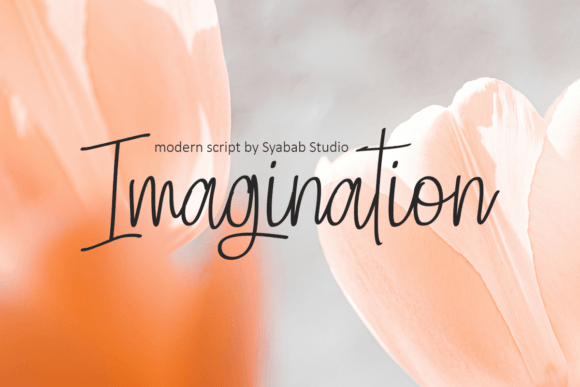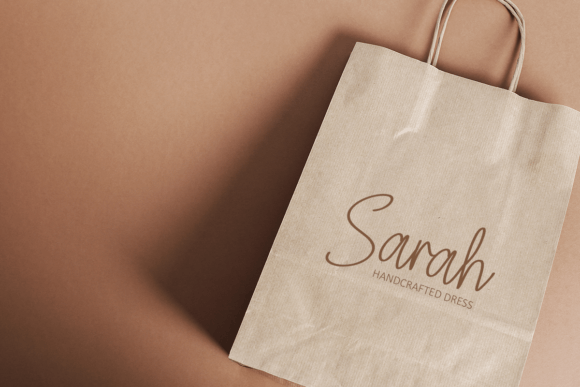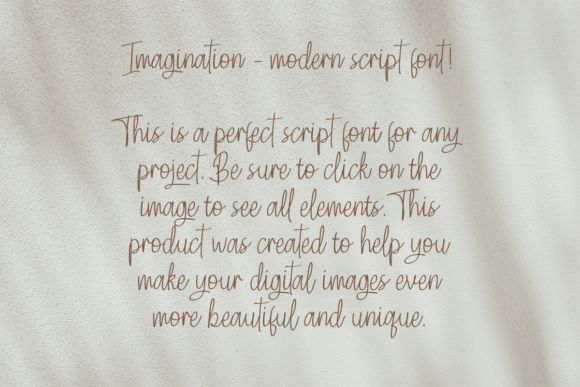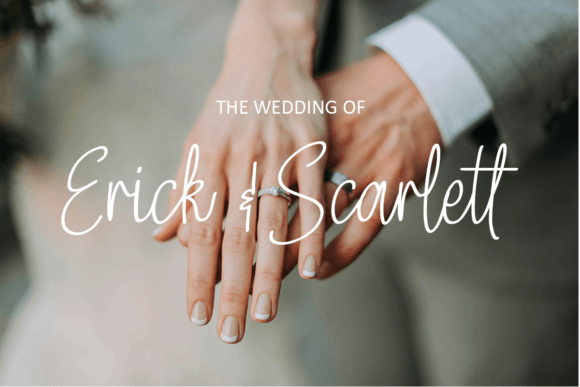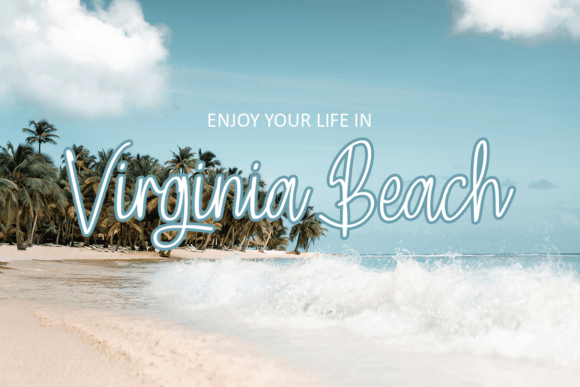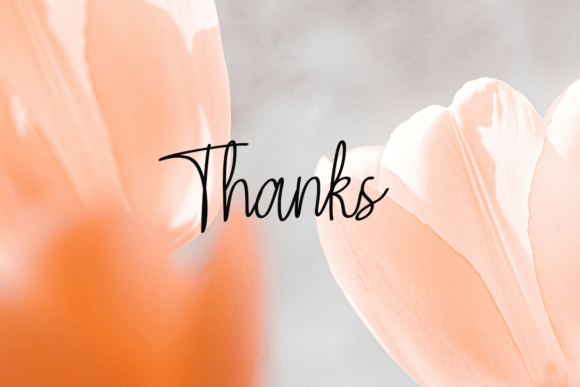
Unlock the Power of Imagination
Have you ever found yourself staring at a blank canvas, waiting for inspiration to strike? Maybe it’s a project at work, a creative outlet, or simply a new idea for a social media post. Whatever it is, the spark of imagination is what sets the wheels in motion and turns a concept into reality.
When it comes to bringing your creative vision to life, the right tools can make all the difference. That’s where the Imagination Font comes in – a modern script font that combines elegance with a touch of artistic flair. With its fluid, hand-drawn strokes and sophisticated curves, this font is perfect for designers looking to elevate their branding, logos, invitations, and social media designs.
Imagination Font Key Features
- Unique Character Set: Imagination Font features a unique set of characters, including swashes, ligatures, and alternates, which can be accessed through advanced font features, adding a touch of creativity to your designs.
- High-Quality Glyphs: Each glyph in the font has been carefully crafted to ensure high-quality rendering, with attention to detail and a focus on aesthetics, resulting in a visually appealing and professional look.
Imagination Font Review
As a designer, I was excited to dive into the Imagination Font, but my experience was a mixed bag.
- Creative Potential: Imagination Font offers an incredible range of creative possibilities, from whimsical illustrations to modern typography.
- Unique Style: The font’s playful, dreamlike quality is perfect for adding a touch of magic to branding, advertising, and editorial projects.
- Customization: Imagination Font allows for extensive customization, enabling designers to tailor the font to their specific needs.
- Limited Legibility: In certain contexts, the font’s intricate details can make it difficult to read, particularly at smaller sizes.
- Overuse: Imagination Font’s unique style can quickly become overwhelming if overused, detracting from the overall design.
- System Compatibility: Some users have reported issues with font rendering and compatibility across different operating systems and devices.
While Imagination Font offers a wealth of creative possibilities, its limitations and potential for overuse should be carefully considered. With thoughtful application and restraint, this font can be a valuable addition to any designer’s toolkit.
For the most out of Imagination Font, try combining it with bold colors and creative layouts. Use it to create eye-catching headings, titles, or quotes. Experiment with different font sizes and styles to add depth and visual interest to your designs.
Imagination Font is ideal for creative projects such as:
– Children’s book covers
– Advertising posters
– Editorial design
Alternatives to Imagination Font